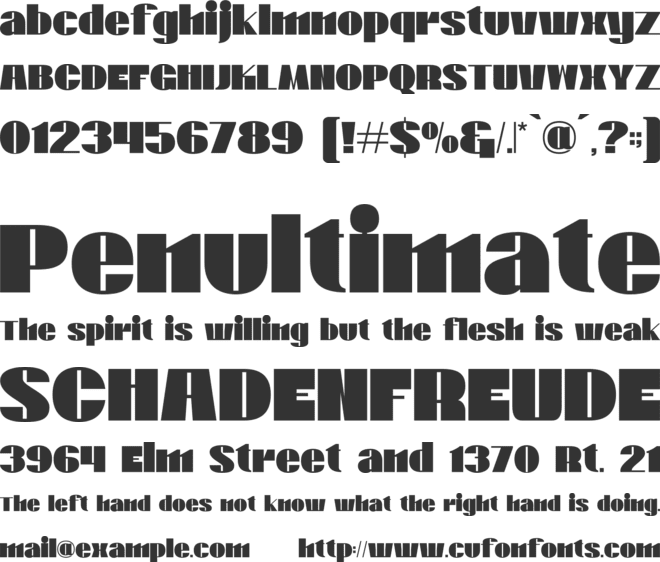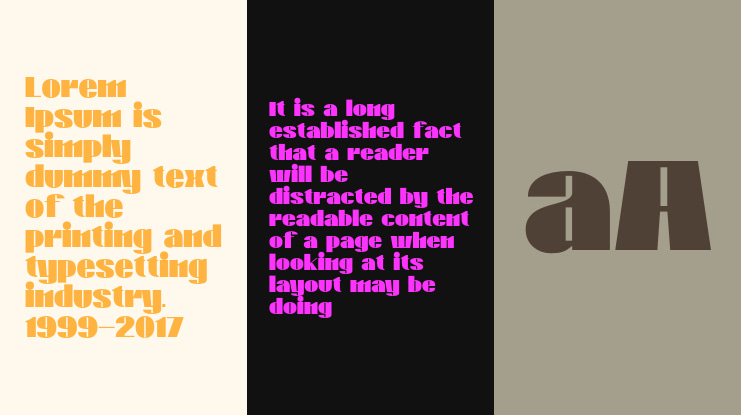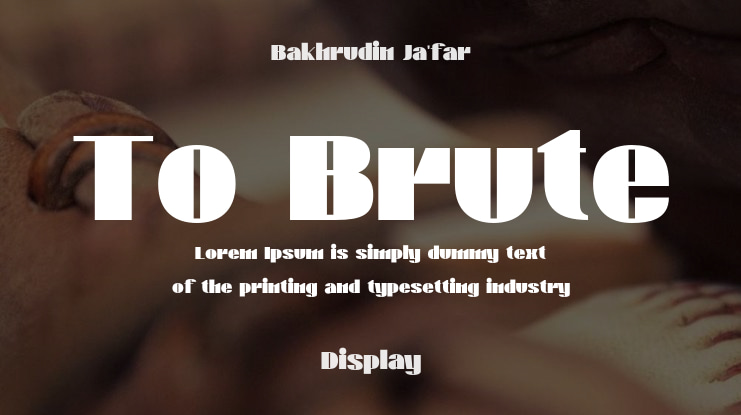
To Brute Font
Unleash the power of modern design with To Brute, a bold sans serif font that breaks the mold! Each letter is meticulously crafted with unique twists, offering a fresh approach to classic typography while maintaining excellent readability. Perfect for bold branding, logo, Sign painting, billboard, sport, magazine, and digital media, To Brute brings a distinctive edge to any project. Its contemporary look and robust feel are ideal for designers seeking a stylish, statement-making typeface.
To Brute shines in various settings, from website headers to product packaging and beyond. Its bold and clean lines ensure it stands out in all design contexts, creating memorable visuals with ease. Whether you’re a business owner, content creator, or graphic designer, To Brute empowers you to make a lasting impression with a touch of unique flair that captures attention.